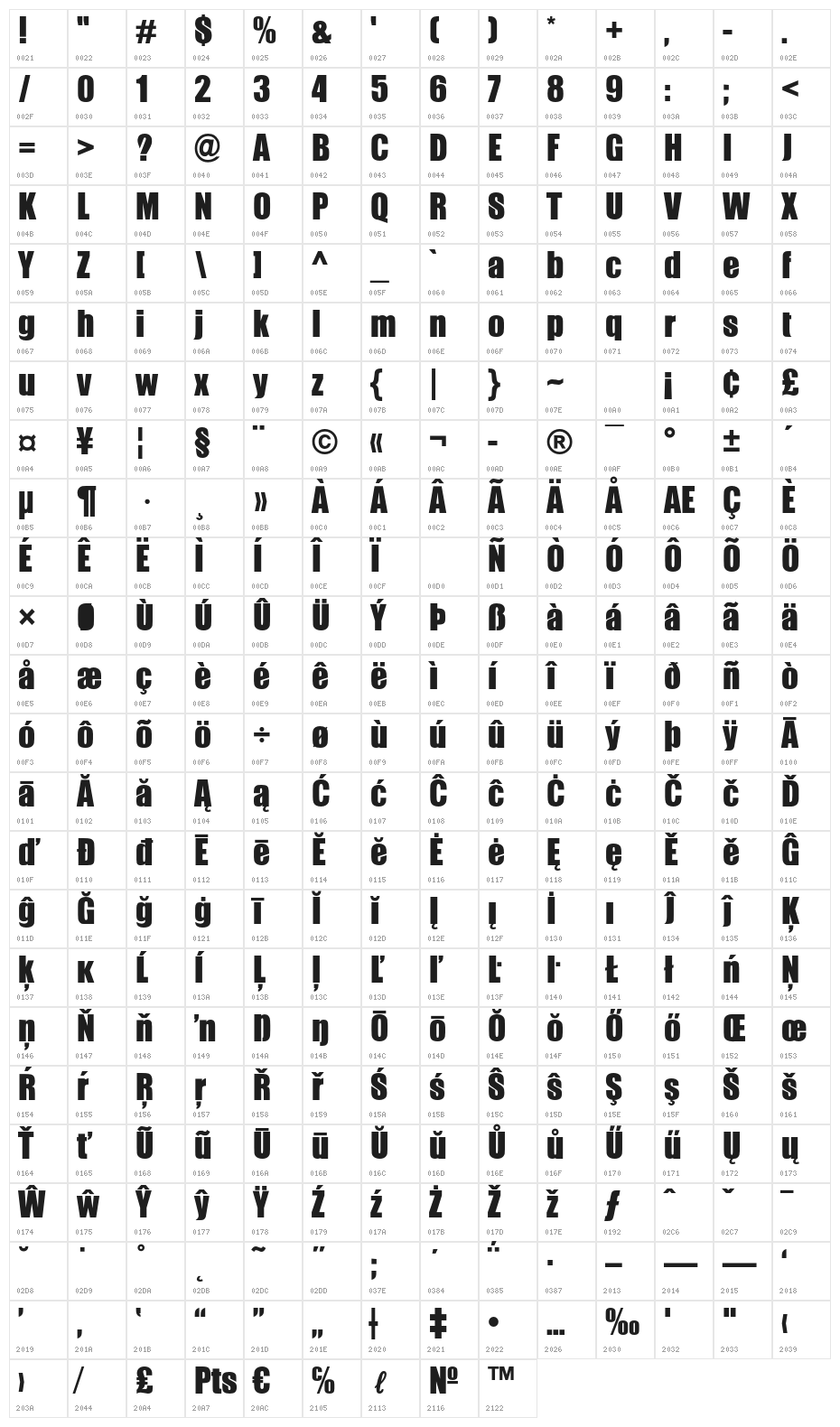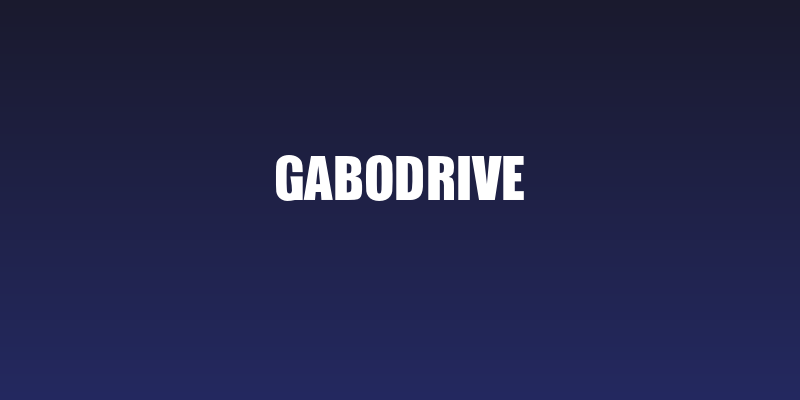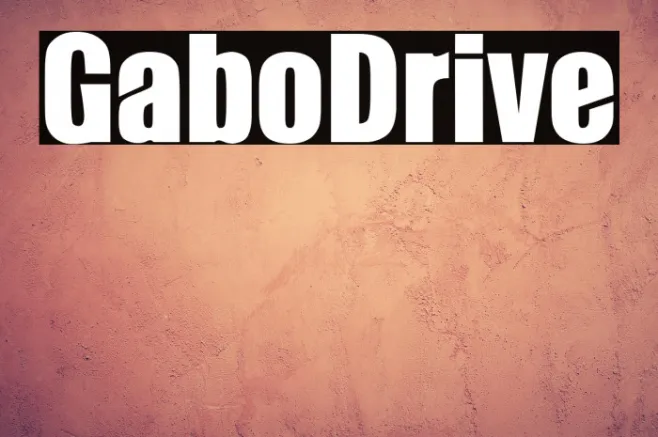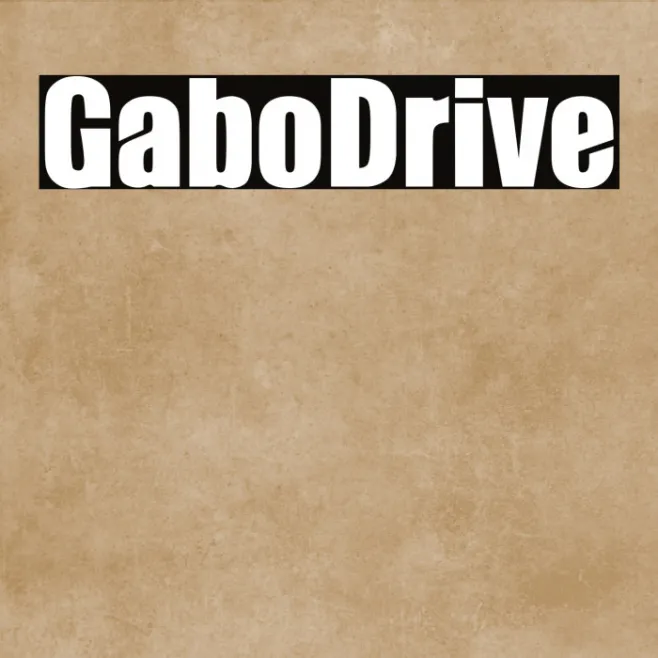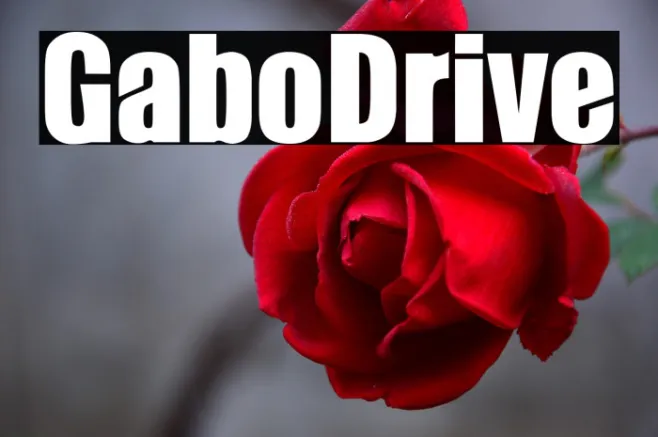
GaboDrive Font
GaboDrive Description
This font features bold, impactful characters with a strong presence. The uppercase and lowercase letters are designed with a uniform thickness, creating a cohesive look. The numbers and special characters maintain the same bold style, ensuring consistency across all text elements. The font's design is straightforward yet powerful, making it suitable for attention-grabbing headlines and statements. Its clean lines and lack of embellishments contribute to a modern aesthetic, while the bold weight adds a sense of authority and confidence.
| Proposed Projects | Ideal for headlines, posters, advertising, and branding projects that require a bold statement. |